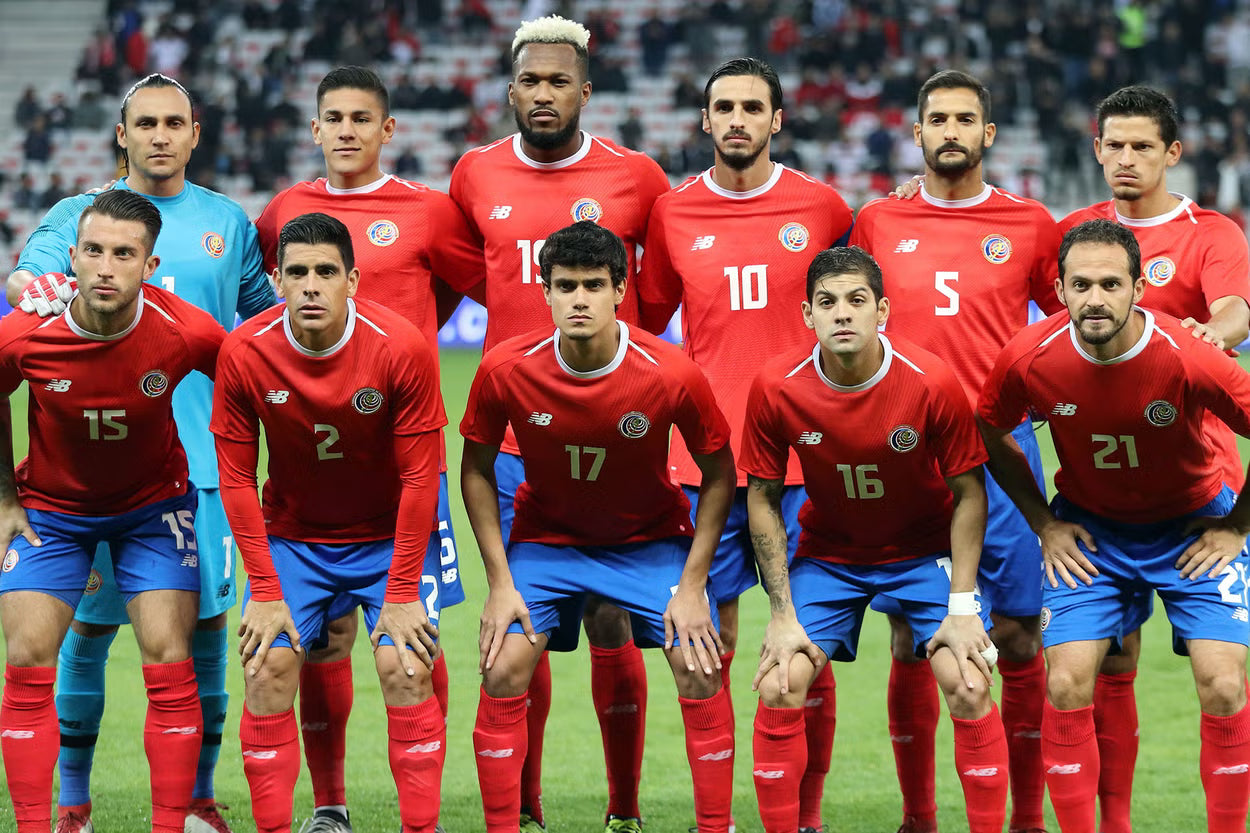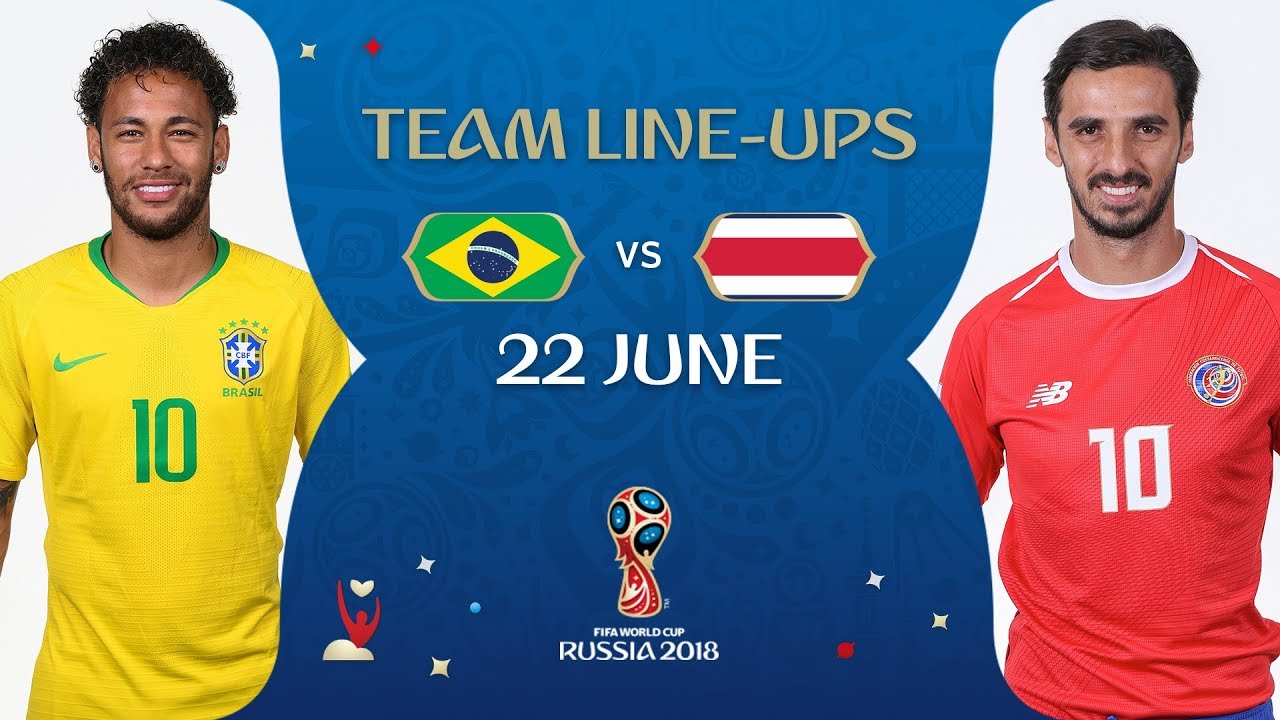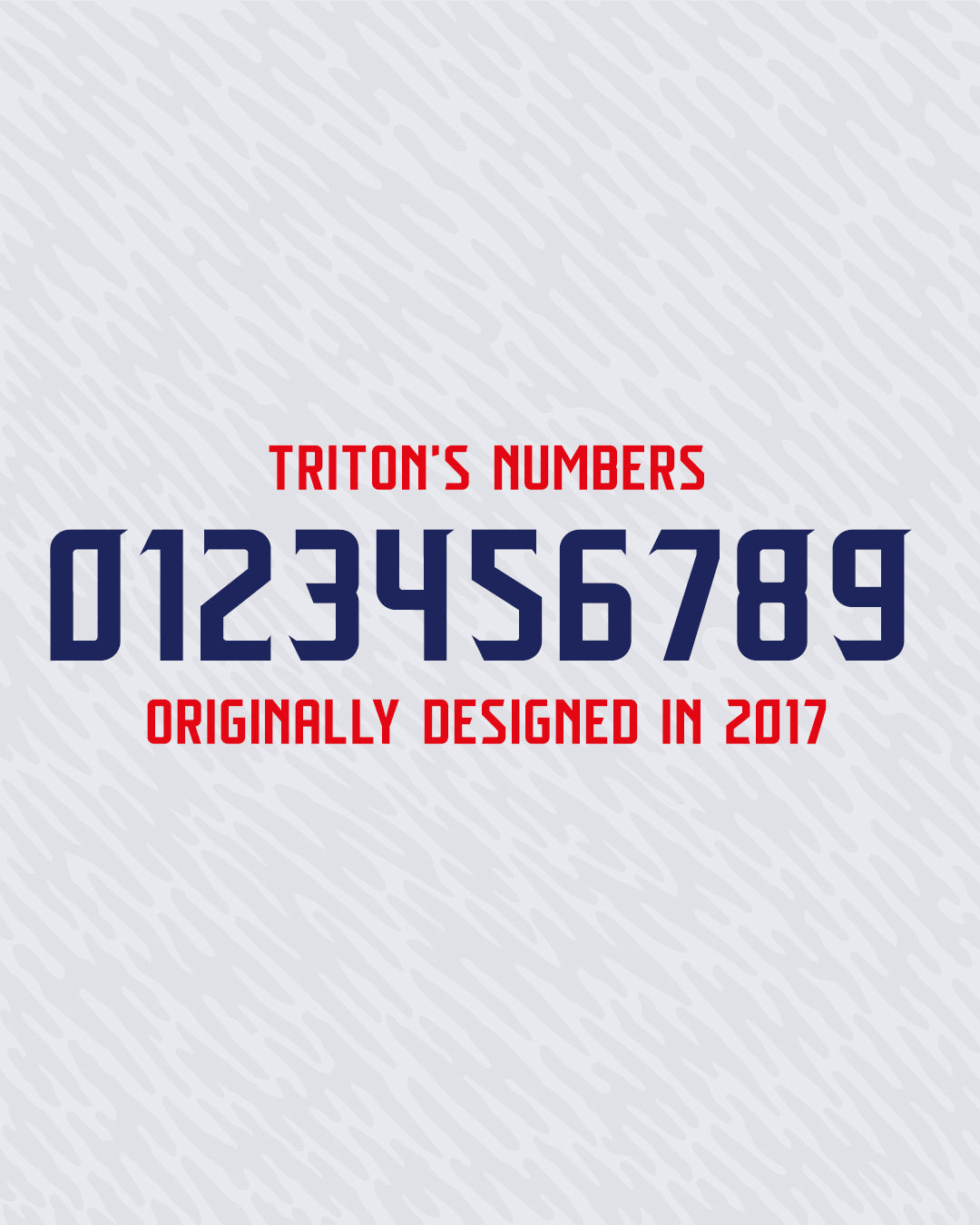
Fonts In Use: Triton Sports Font - 2018 FIFA World Cup
Growing up, I played soccer and a few other sports but baseball and soccer were my main ones. Soccer, however, was my true love when it came down to a choice of what I felt I wanted to pursue more than anything. After realizing the financial investment it would have taken for me to go pro much less college...I didn't follow through and stuck to playing recreationally. The dream was always there to play in a World Cup and be part of that moment.
Fast forward a decade after college and I created Triton, a new sports font I had just created over a weekend in 2017 not long after my son was born. I was inspired by the creative team over at the Minnesota Vikings and I decided to build off their type work. It all clicked, I launched the first iteration of Triton and then a few weeks or months it started selling more than my other fonts. I'd get asked to join font bundles over various sites mainly for Triton to be included and I was like...sure...the more, the better! I had no idea what I was doing but I was trying to be wise in my moves if that makes sense.
In the Summer of 2018, the FIFA World Cup begins and I'm watching games like any soccer fan and I'm also thinking...man, how cool would it be if I saw MY font on a jersey or 2. It didn't happen, I thought I saw something familiar though on Costa Rica's kits, but it felt off. I told my wife while watching the game and then kind of dismissed it. No way my font got used in a World Cup without me knowing about it...aren't they supposed to tell you?
Fast forward a few years afterward and I decided to look into it and I was stunned. Yeah...that's Triton's number set but customized a little by the New Balance kit designer for Costa Rica's kits that year. I found a bunch of photos and grabbed them cause...you know...record keeping.
I ended up typing Triton's numbers out next to the Costa Rican versions and it's very subtle but I'm 99.9999% certain those started as mine.
I do wish someone would've told me and let me truly experience that World Cup in a different way but I'm hoping I'll get another chance in the future.